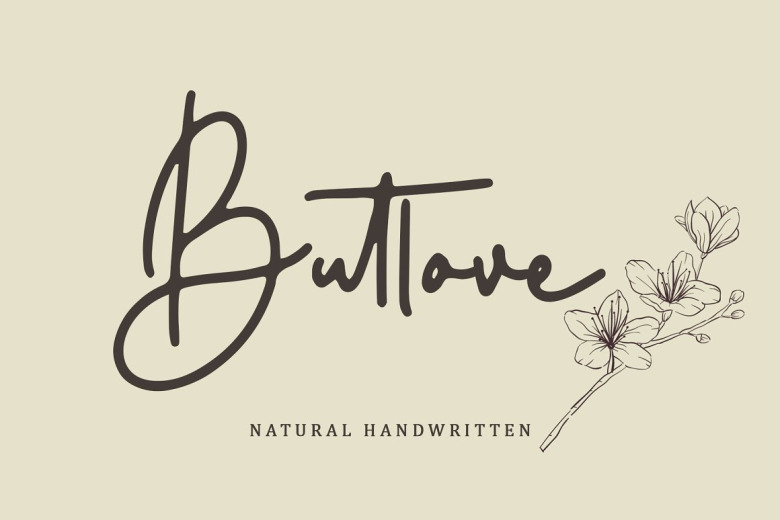
Butlove Font
Butlove is a sweet and friendly handwritten script font. Its natural and unique style makes it incredibly fitting to a large pool of designs. The only limit is your imagination!
Butlove Handwritten Script Font